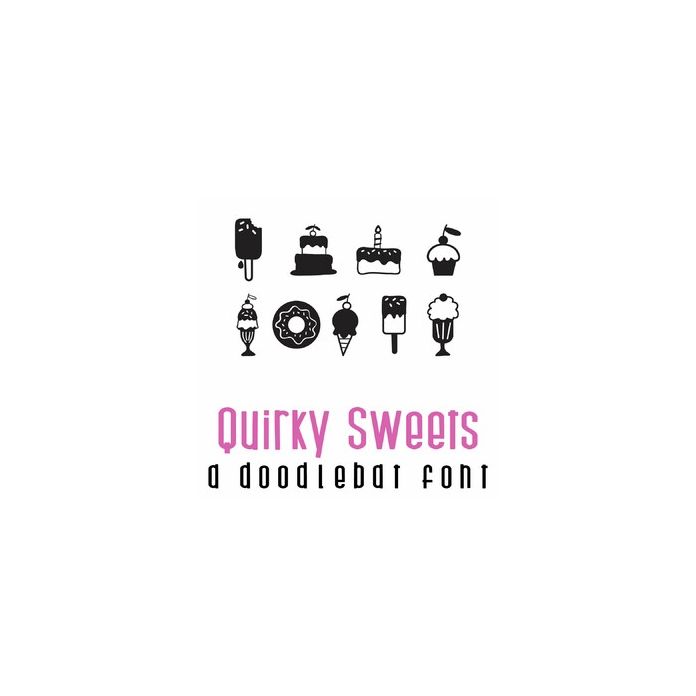
Quirky Sweets Doodlebat Font
This fun doodlebat font features 26 fun quirky sweets. Perfect for cards, crafts, gifts, decor, scrapbook pages, planner stickers and more!